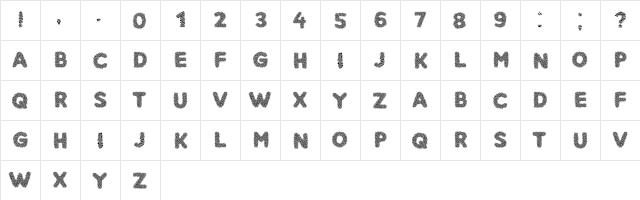
Narcissus Regular Font Preview
Narcissus Regular
Design Context for Narcissus Typeface
Narcissus takes a measured approach to typography — its balanced proportions and neutral character make it a reliable workhorse for both digital and print work.
Pro Tip: Pair Narcissus with a font of contrasting weight or personality to build a more expressive typographic hierarchy.